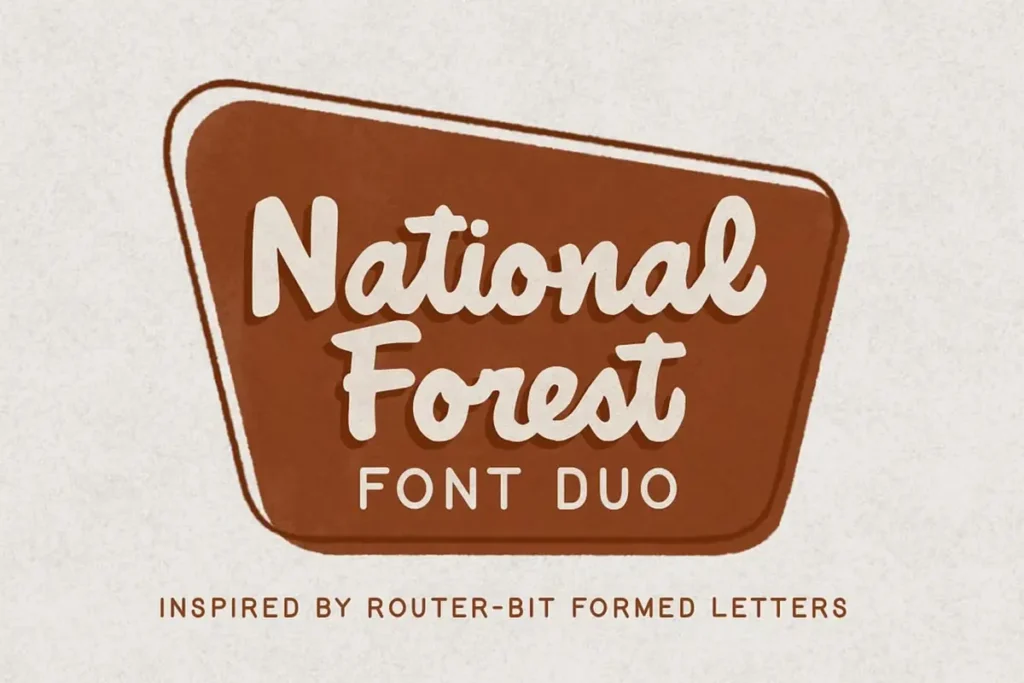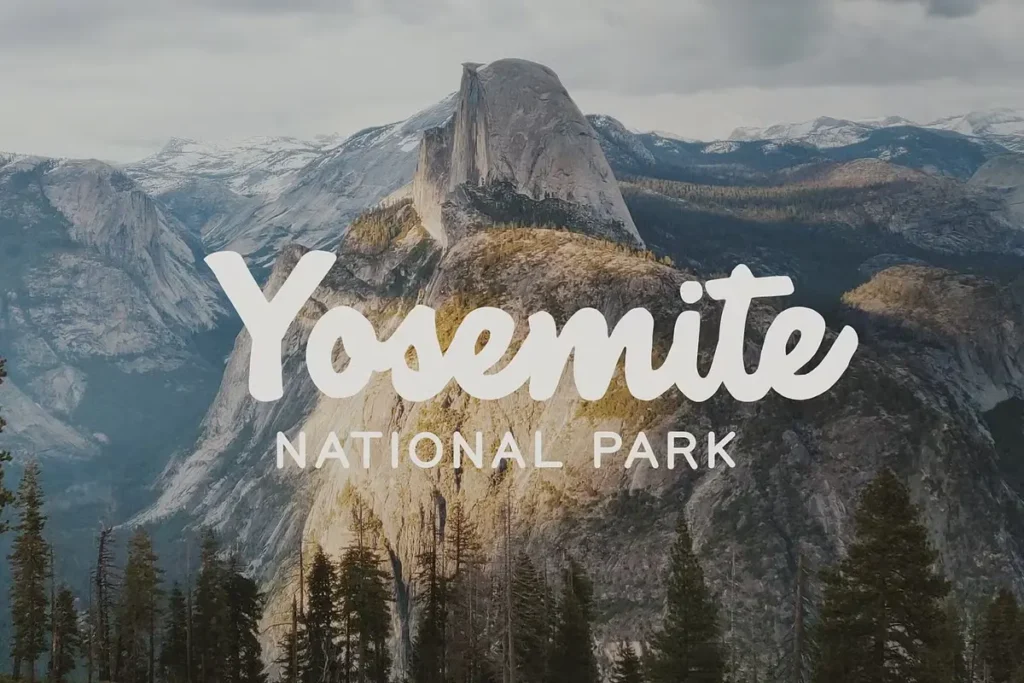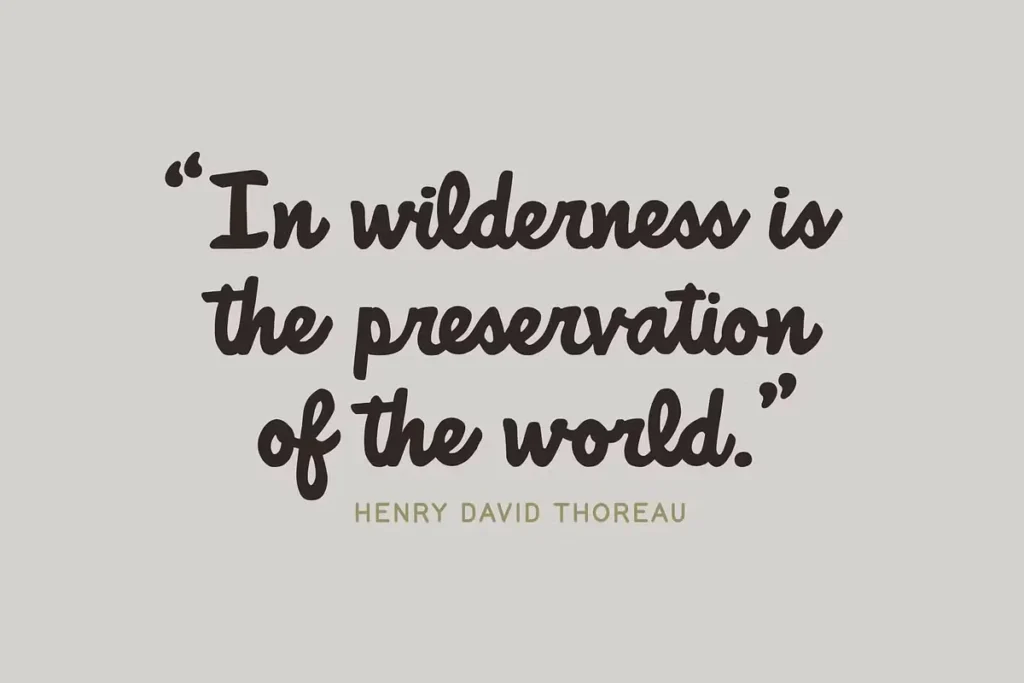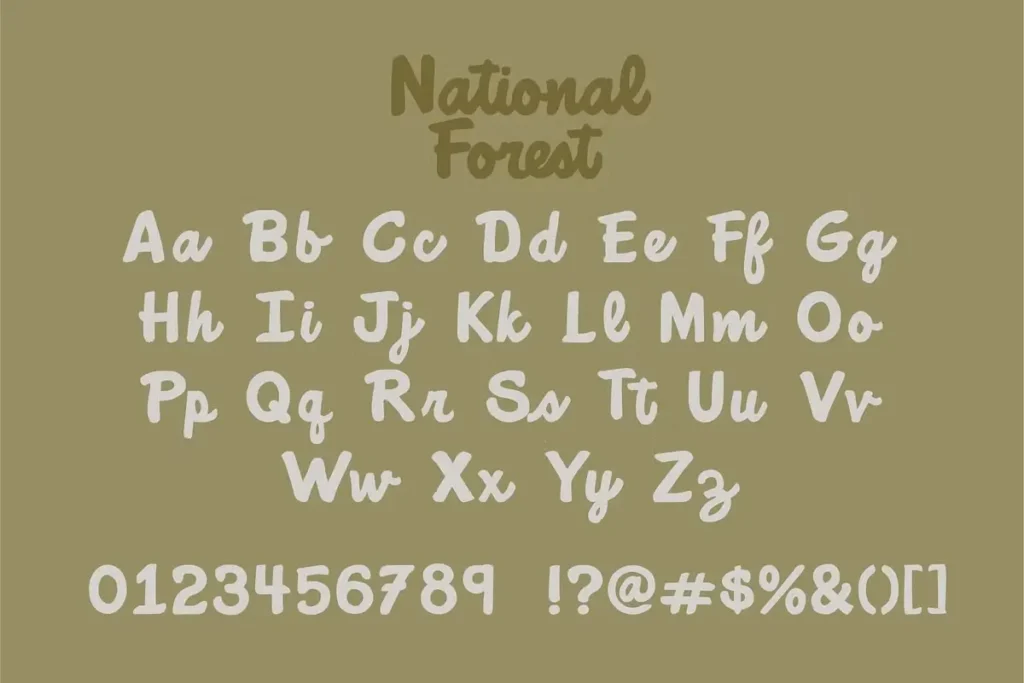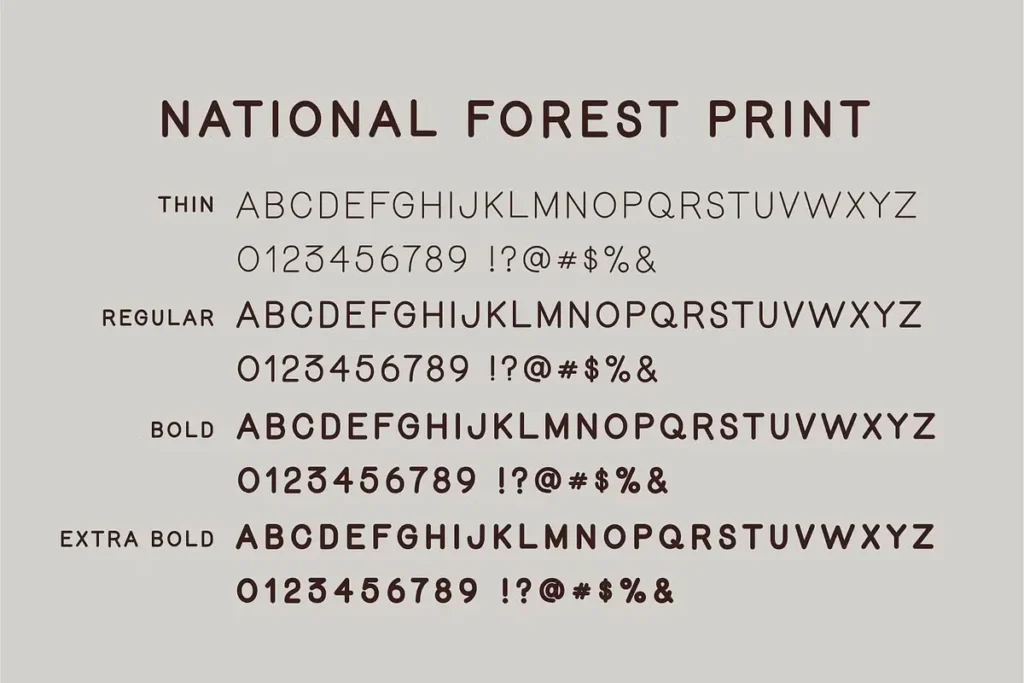
About National Forest Font
As a typographer and graphic designer with over 8 years of experience, I’m always hunting for fonts that tell a story. I stumbled upon the National Forest Font while working on a camping gear brand project last month. Something about its rugged charm instantly caught my eye!
I’ve since used it for a coffee shop logo and an outdoor clothing campaign. The client feedback has been incredible—everyone loves how it captures that vintage outdoor spirit. I’m sharing this review because this typeface deserves more attention from designers looking for authentic character in their work.
The Story Behind the Font
National Forest is a charming typeface duo created by designer Rachel Kick. This unique font duo inspired by the National Park Service signs found throughout the United States. What makes this font special is how it replicates the distinctive router-carved look of those wooden park signs we all recognize from camping trips and outdoor adventures.
The font captures a perfect blend of nostalgia and functionality. Rachel Kick designed National Forest to digitally preserve the timeless quality of those hand-crafted national park signs, complete with the natural imperfections created by router bit carving techniques. The result is a typeface with authentic character—each letter looks as though it was carefully carved into wood rather than digitally rendered.
National Forest Font includes five different weights, including print bold and extras. The family features more than eighty-one characters, covering uppercase letters, punctuation, and special characters that give designers plenty of versatility for different projects.
Features That Make This Font Special
National Forest Font stands out with its quirky, retro style that instantly evokes the great outdoors. The font duo combines a flowing script with a complementary print style, making it incredibly versatile for various design applications. The natural imperfections built into the letterforms aren’t flaws—they’re intentional design elements that add genuine charisma and character to your work.
The router-bit inspired design gives each character a distinctive carved appearance that works wonderfully for creating that vintage, handcrafted feel. The thick, bold lines and rugged appearance capture the wilderness spirit perfectly. These qualities make the font immediately recognizable while remaining highly readable.
One of the strongest features of National Forest is how well the script and print styles complement each other. This pairing allows designers to create hierarchy and visual interest without needing additional font families. The OpenType features include ligatures that enhance the natural flow of text, especially in the script variant, making headlines and logos look custom-designed rather than simply typed out.
Where Can You Use This Script Font?
National Forest Font shines in projects that need a touch of nostalgia, outdoor spirit, or handcrafted authenticity. It works exceptionally well for branding projects related to outdoor activities, camping gear, coffee shops, and natural products.
The font makes a strong impression in logo design—its distinctive character helps brands stand out while conveying reliability and a connection to nature. Marketing materials like posters, social media graphics, and packaging all benefit from its unique personality. The bold weight cuts through visual clutter on websites and digital platforms.
I’ve found National Forest particularly effective for:
- Outdoor adventure company branding
- Food packaging with a natural or artisanal focus
- Book covers for travel guides
- Coffee shop menus and signage
- Clothing brands with vintage appeal
The font displays beautifully across platforms, from print materials to web typography, and even mobile apps. It maintains its character whether viewed on desktop computers, iOS devices, Android systems, or Windows Phone.